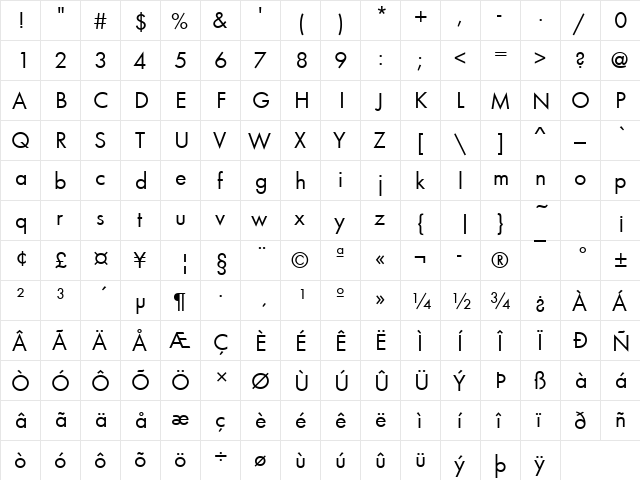
Ma? Regular
Design Context for Ma񡮡? Typeface
Ma񡮡? offers clean, dependable letterforms without strong stylistic allegiance, making it a practical choice for designers who need flexibility.